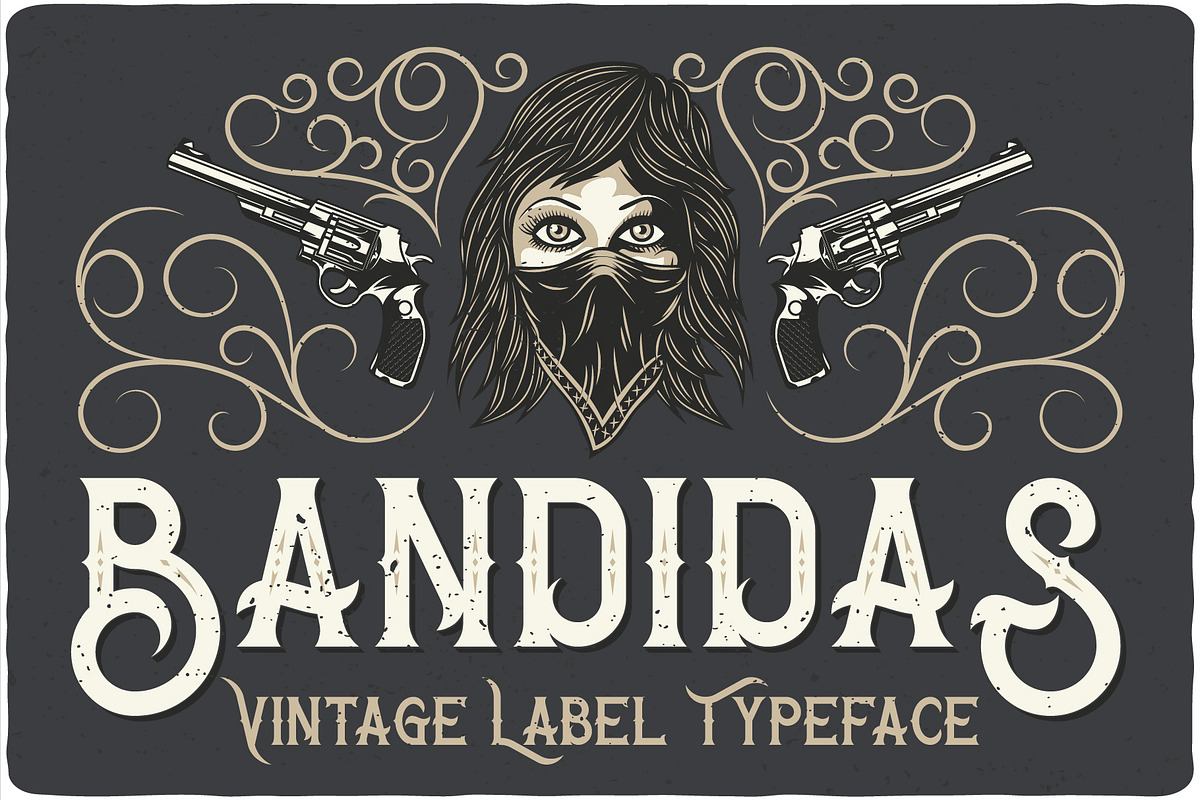
Bandidas Typeface Free Download is a bold, dynamic, and rebellious font designed with an outlaw-inspired aesthetic. With its strong, angular letterforms and gritty texture, this typeface is perfect for projects that need to evoke a sense of adventure, toughness, and bold attitude.
Ideal for branding, posters, album covers, clothing designs, and any other project that requires a tough, rugged appearance, Bandidas brings an edge to your typography. Whether you’re designing for a music brand, a streetwear line, or anything with a bold, energetic theme, Bandidas adds the perfect touch of raw power to your designs.